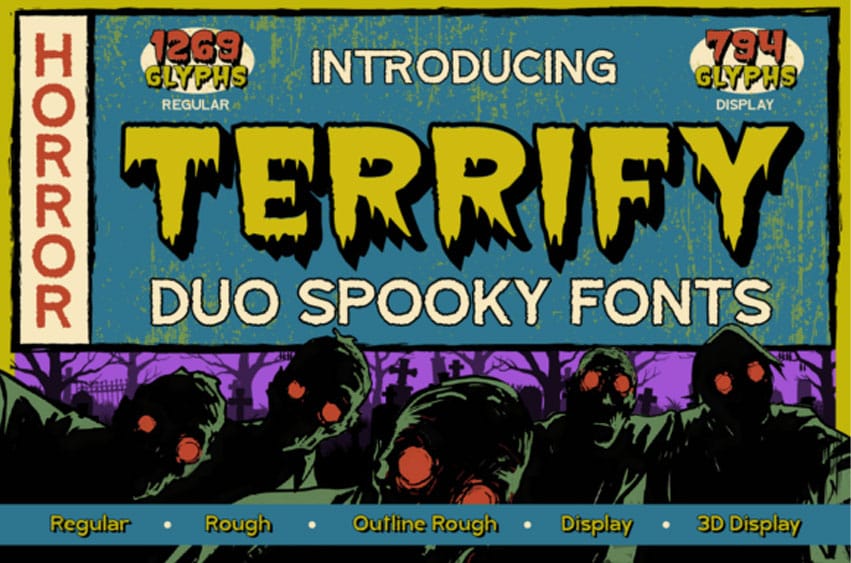
Terrify Regular Font is a horror-themed typeface crafted to evoke eerie, mysterious, and gothic atmospheres in your designs. It features two main styles—Display and Regular—each tailored for dramatic visual impact. The Regular style includes three variations: Regular, Rough, and Outline Rough, while the Display style offers Display and 3D Display options for added depth and cinematic flair.
With cracked textures and a blood-soaked aesthetic, Terrify delivers a spine-chilling, theatrical presence. It’s ideal for horror movie titles, Halloween invitations, macabre book covers, dark-themed merchandise, mystery branding, or gothic/metal band logos. Imagine tombstone carvings, vintage horror posters, and classic thriller energy—all fused into one unforgettable font.